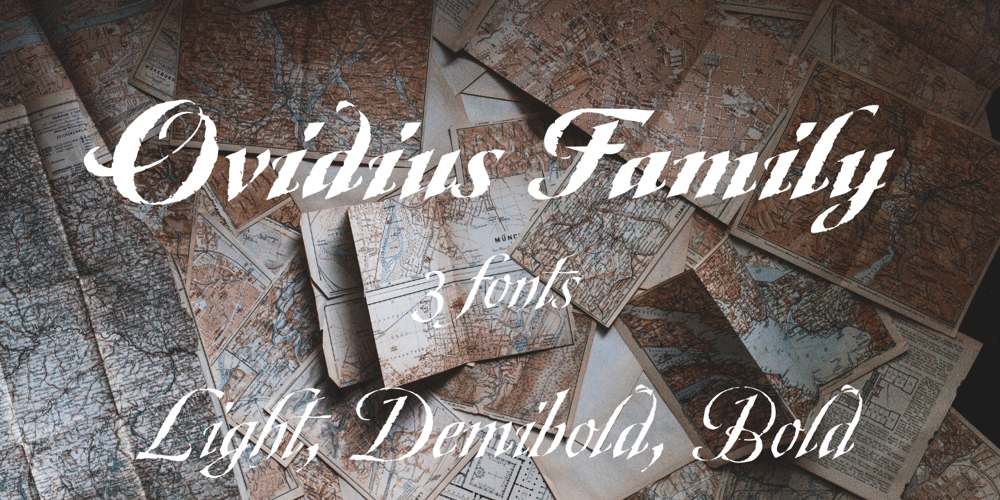
Ovidius Script Font Family was designed by Thaddeus Szumilas and published by GroupType. Ovidius Script contains 3 styles and family package options. Ovidius is a formal script with solid structure. Characters present a look and feel of an ancient pen to very rough paper. The Ovidius family designed by Thaddeus Szumilas is now part of GroupType, a foundry specializing in period and revival typeface designs. These designs have not only important historical design roots, they possess great contemporary appeal.